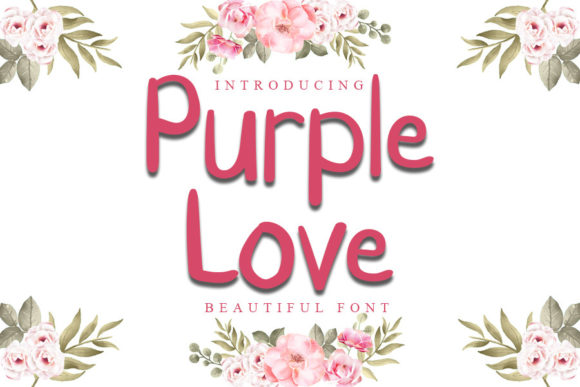
Introducing Purple Love Font - A Handcrafted Display Font to Ignite Your Creativity
Unleash your imagination and let your words burst with affection with Purple Love Font, a stunning script font that exudes charm and elegance. Created by FL Space, Purple Love is more than just a font; it's an artistic journey that will transform your designs into heartfelt expressions.
With its playful curves and delightful loops, Purple Love captivates the eyes and captivates the heart. Its delicate strokes evoke a sense of warmth and intimacy, making it perfect for adding a personal touch to your projects. Whether you're designing wedding invitations, heartfelt letters, or eye-catching logos, Purple Love will add a touch of magic that resonates with your audience.
But Purple Love isn't just visually enchanting; it's versatile and adaptable, too. Its flexible style allows it to seamlessly blend into a variety of design themes and concepts. From dreamy and romantic to modern and sophisticated, Purple Love effortlessly complements your unique vision.
And with Purple Love's endless variations, the possibilities are boundless. Experiment with different color palettes, textures, and layouts to create designs that are as unique as your imagination. Let your creativity soar as you explore the endless possibilities that Purple Love offers.